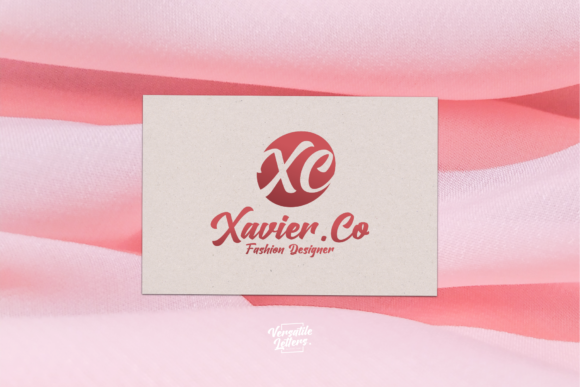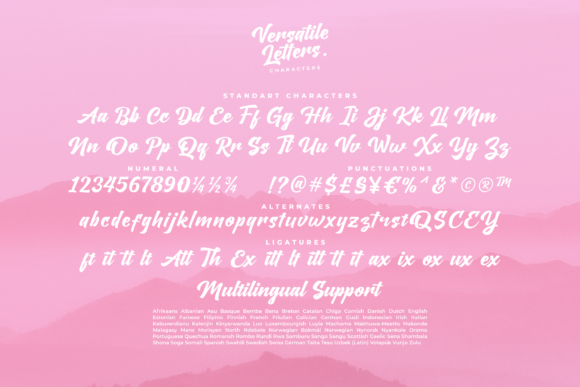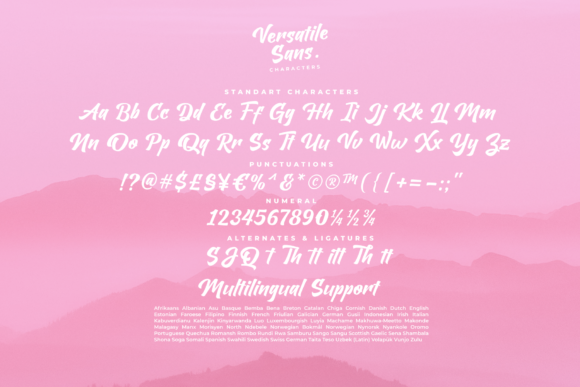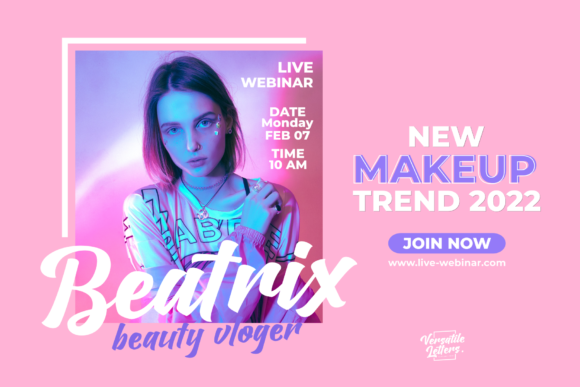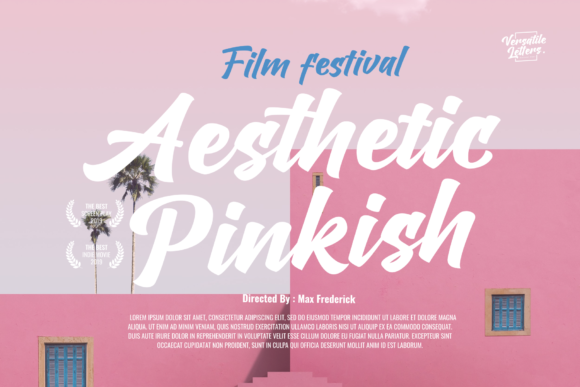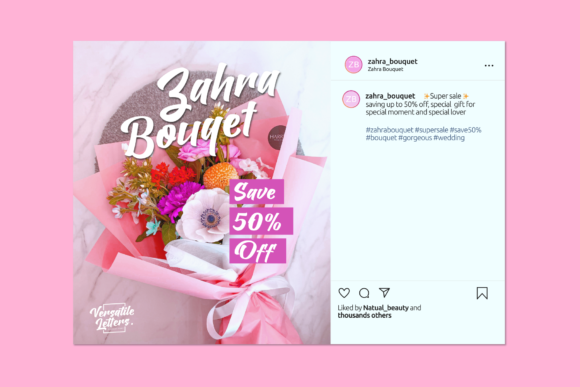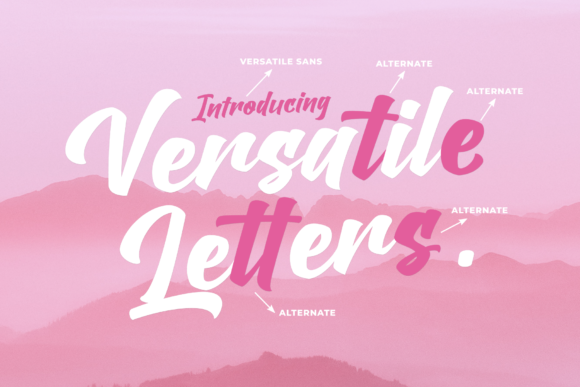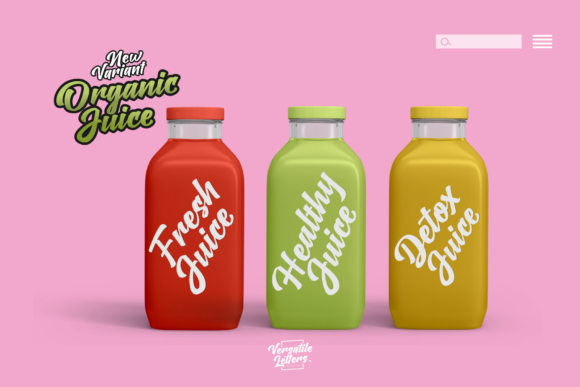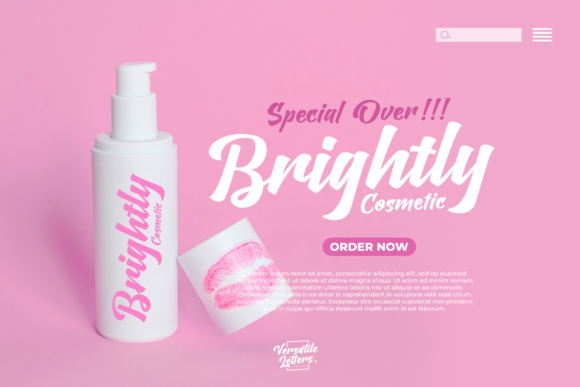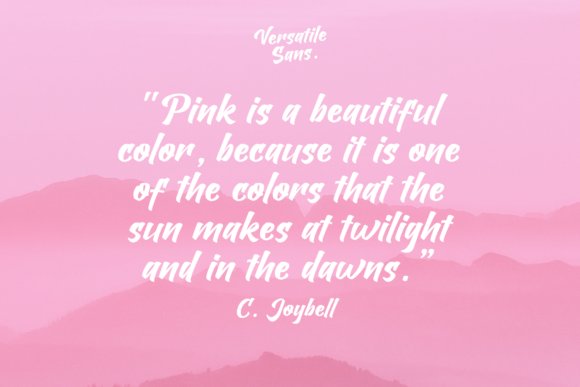
Versatile Letters Duo Script Font
About Versatile Letters Duo Script Font
Proudly present the collaboration of elegant, fresh, and modern duo script fonts from Versatile Letters. According to the name of the font, Versatile Letters, this font is useable for anything in your project design such as logo, title, headline, product packaging, branding identity, advertisements, social media post, quote text, and more. You can mix and match the duo script font according to your needs. This font is PUA encoded, which means you can access all of the glyphs and swashes with ease!